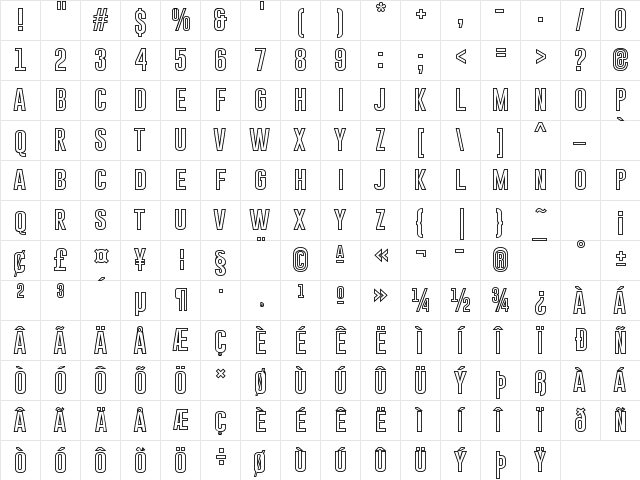
Gobold Hollow Bold Regular
| Designer | Situjuh Nazara |
Design Context for Gobold Hollow Bold Typeface
Gobold Hollow Bold takes a measured approach to typography — its balanced proportions and neutral character make it a reliable workhorse for both digital and print work. Its bold stroke weight gives it real presence on the page.